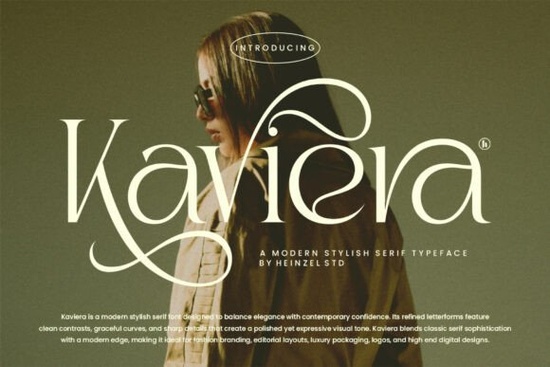
If you're looking for a font that combines timeless elegance with a modern twist, Kaviera Font is an excellent choice. This stylish serif font is designed to bring a sophisticated yet expressive visual tone to your projects, making it perfect for a variety of creative uses.
Why Choose Kaviera Font?
Kaviera stands out with its refined letterforms, graceful curves, and sharp contrast. These features make it a versatile option for fashion branding, editorial design, luxury logos, packaging, magazines, and high-end digital projects. Whether you're a designer, crafter, or a small business owner, Kaviera can add a bold, polished presence to your work.
Perfect for Fashion and Editorial Design
Fashion and editorial design often require a font that exudes both elegance and modernity. Kaviera's clean lines and balanced proportions make it ideal for creating eye-catching headlines and body text in fashion magazines, lookbooks, and other high-end publications. Its versatility allows you to use it for both print and digital formats, ensuring consistency across all your designs.
Luxury Logos and Branding
When it comes to branding, especially in the luxury sector, the right font can make a significant difference. Kaviera's sophisticated yet expressive nature makes it a top choice for creating memorable logos and brand identities. The font's ability to blend classic serif aesthetics with a modern edge ensures that your brand stands out while maintaining a sense of timelessness.
High-End Packaging and Product Labels
For designers working on high-end packaging and product labels, Kaviera offers a perfect solution. Its refined and elegant appearance can enhance the overall aesthetic of your packaging, making it more appealing to customers. Whether you're designing labels for a luxury skincare line or a gourmet food product, Kaviera can help you create a premium look.
Comparison with Other Serif Fonts
While Kaviera is a standout choice, it's always good to compare it with other serif fonts to see which one best fits your project. For example, The Lancher Shine and Tuscany Shade are also popular options. Each of these fonts has its unique characteristics, so consider the specific needs of your project when making your selection.
Using Kaviera in Digital Projects
Kaviera is not just for print; it also works beautifully in digital projects. Its clear and legible design makes it suitable for websites, social media graphics, and digital marketing materials. Whether you're creating a new website or updating your social media presence, Kaviera can help you achieve a professional and polished look.
Tips for Using Kaviera Effectively
- Pair with Complementary Fonts: Consider pairing Kaviera with a sans-serif font for a balanced and modern look. This combination can be particularly effective for creating a dynamic and engaging layout.
- Test Different Sizes and Styles: Experiment with different sizes and styles (e.g., bold, italic) to find the best fit for your project. Kaviera's versatility allows for a wide range of creative possibilities.
- Use for Key Elements: Highlight important elements like headings and subheadings with Kaviera to draw attention and create a strong visual impact.
By incorporating Kaviera into your design toolkit, you can add a touch of elegance and modernity to your projects, making them stand out and leave a lasting impression.